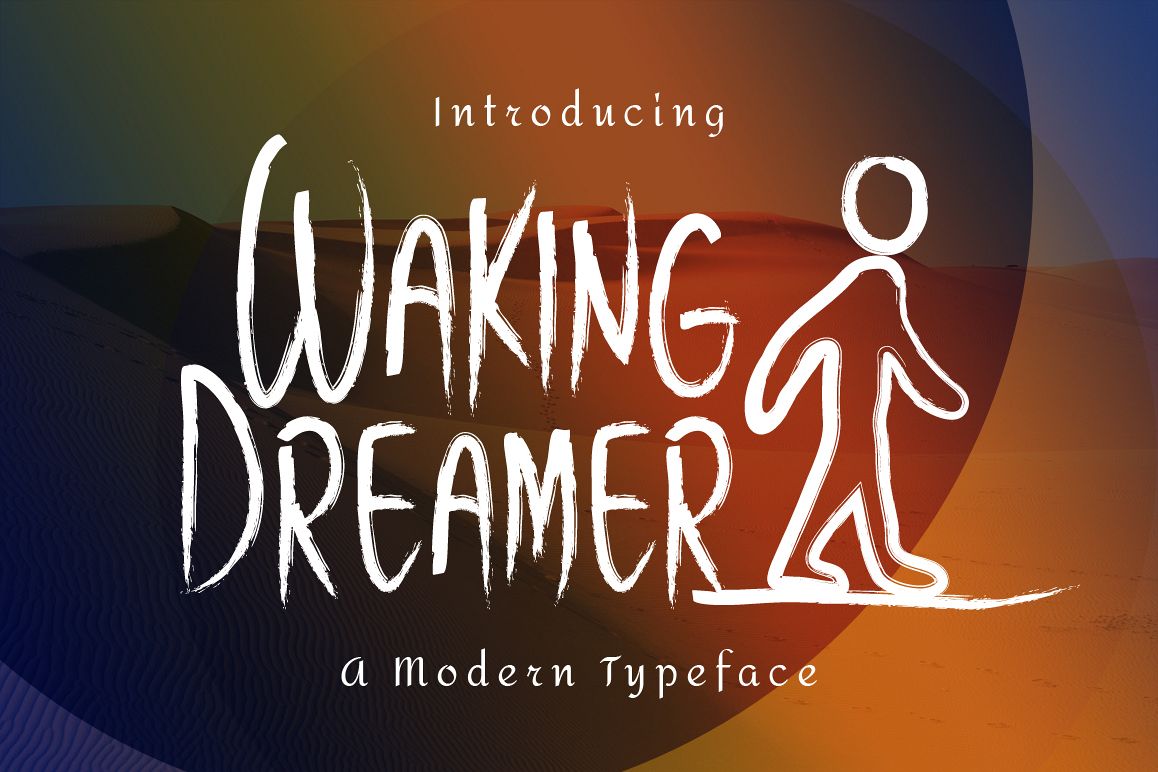
Introducing Waking Dreamer!
I love to create typefaces! When an idea comes to mind, I start to work on implementing font ideas. I’m not saying that my fonts always attract everyone, but I always try to design an eye-catching and high-quality font.
Waking Dreamer is a brand new font. I hope you like it. Very suitable for logos, t-shirts, print design, website headers, photo frames, flyers, album covers, posters, image sliders and much more.